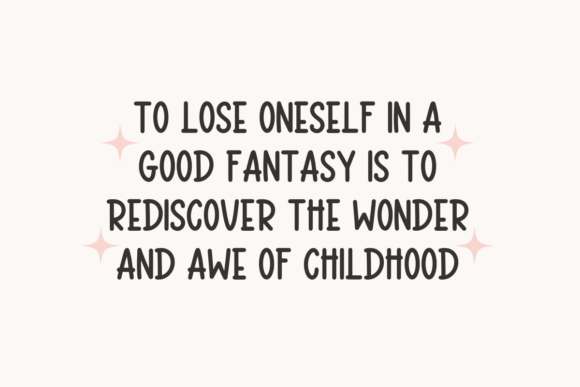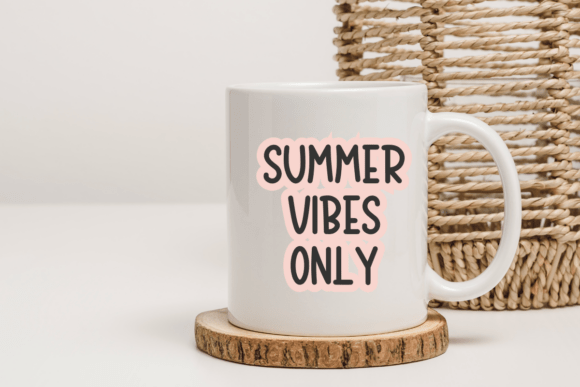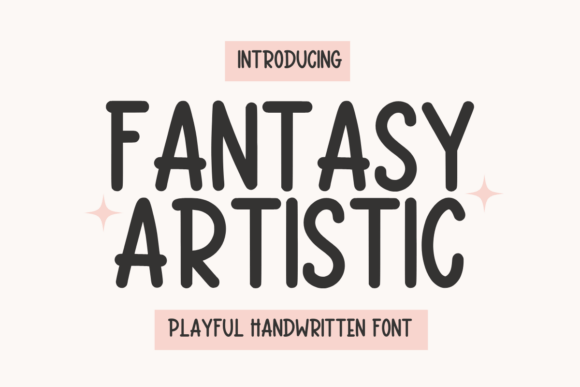
Introduction to Fantasy Artistic Font
Fantasy Artistic is a playful handwritten font that’s perfect for crafts, planners, KDP, stickers, greeting cards, and more.
With its cute and friendly style, it works great for Cricut, sublimation, and creative DIY projects Ideal for crafters, designers, and makers.
Key Features of Fantasy Artistic Font
Why Choose Fantasy Artistic Font?
Fantasy Artistic Font offers exceptional quality and versatility, making it a valuable addition to your design toolkit. Whether you’re creating for personal projects or commercial use, Fantasy Artistic Font delivers professional results.